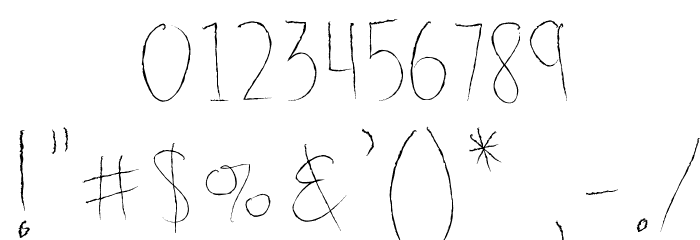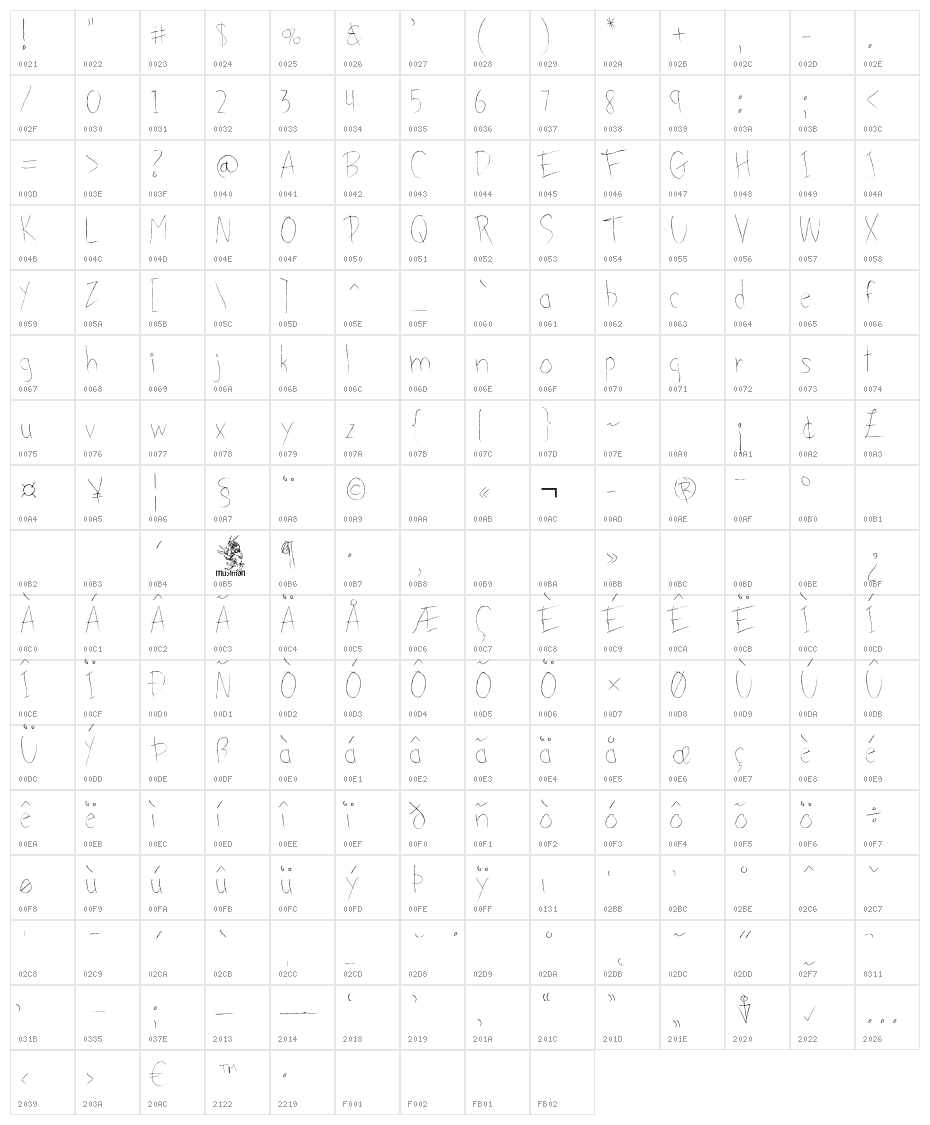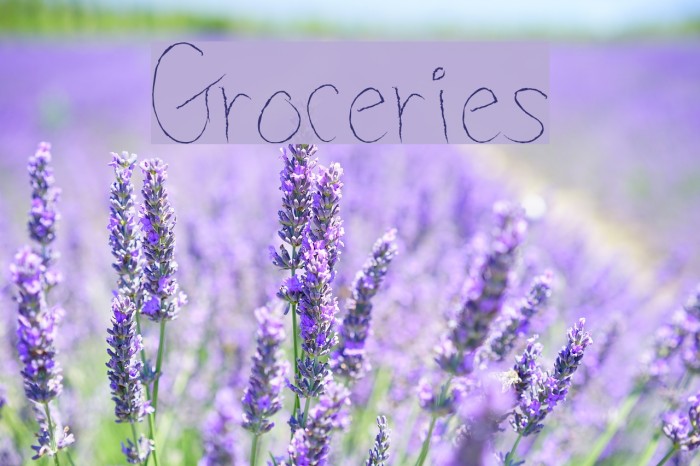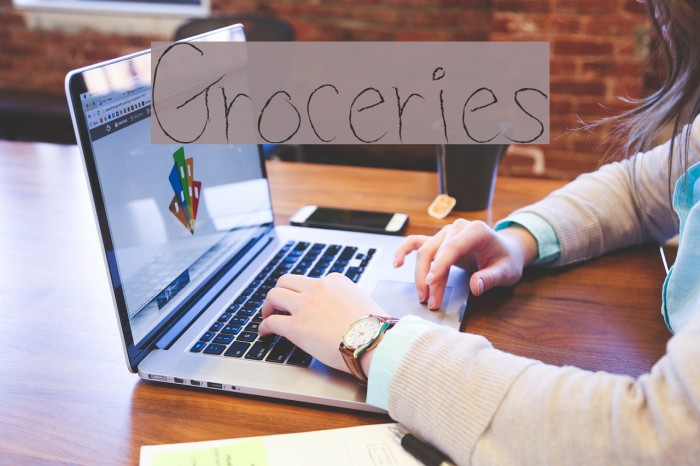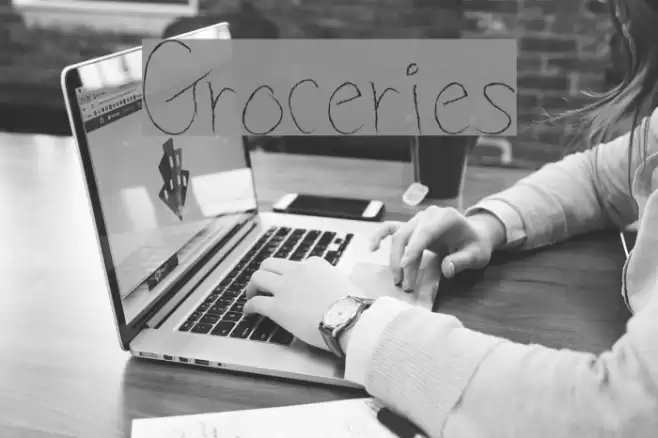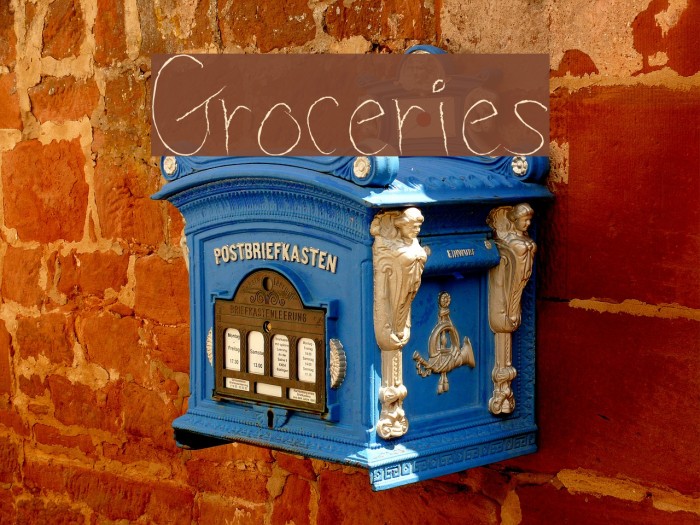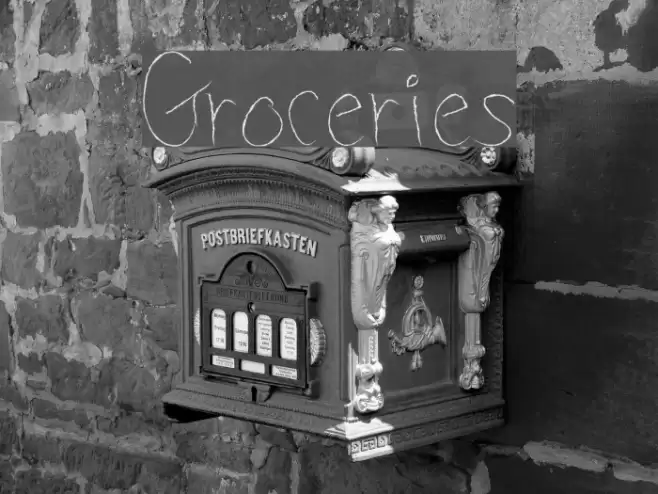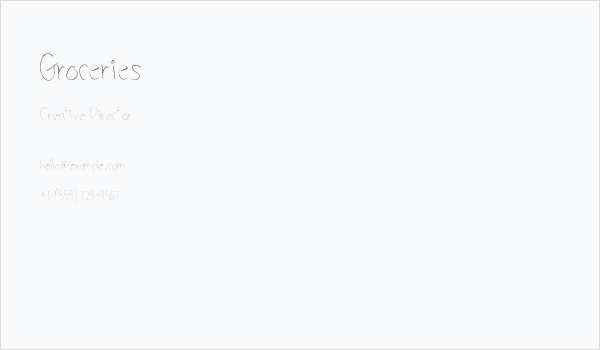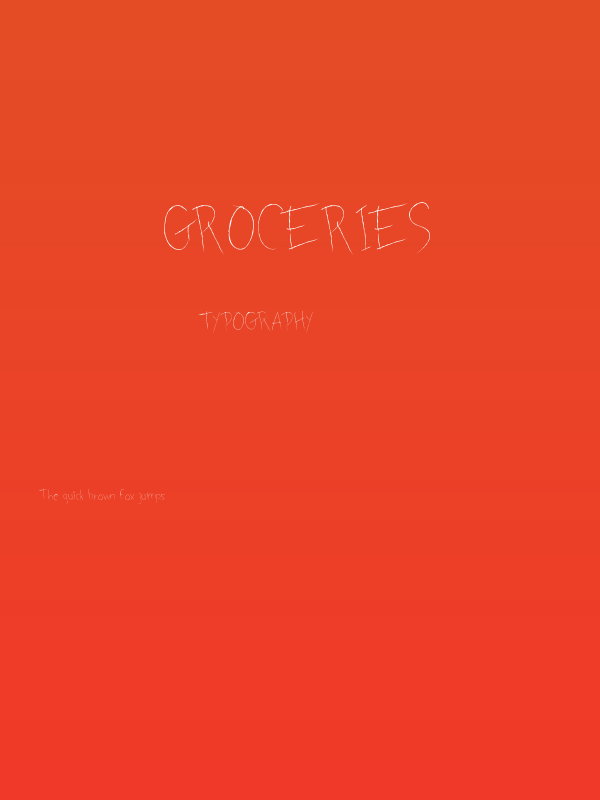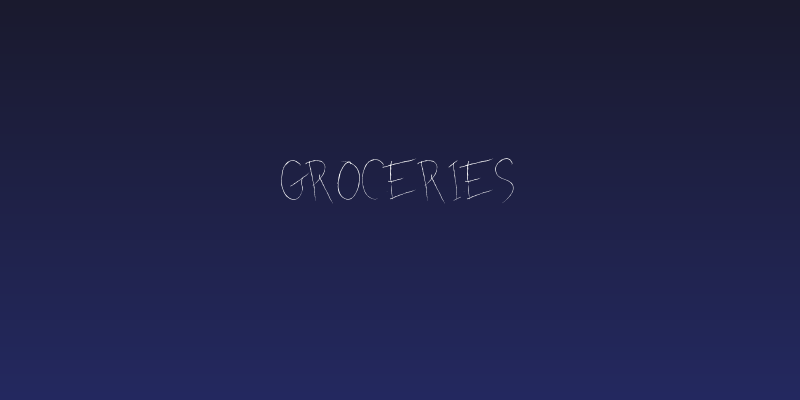
Groceries Font
Groceries Description
This font features a handwritten style with a casual and organic feel. The letters are slightly irregular, giving it a personal touch that mimics natural handwriting. The strokes are thin and uneven, adding to its informal and approachable character. The uppercase and lowercase letters maintain a consistent style, with the uppercase being slightly taller and more elongated. Numbers and special characters follow the same handwritten aesthetic, making the font versatile for various uses. Its unique charm lies in its simplicity and the subtle imperfections that make it stand out.
| Use Case | Greeting cards, Personal notes, Informal invitations |
| Proposed Projects | Ideal for personal notes, greeting cards, informal invitations, and creative projects that require a human touch. |